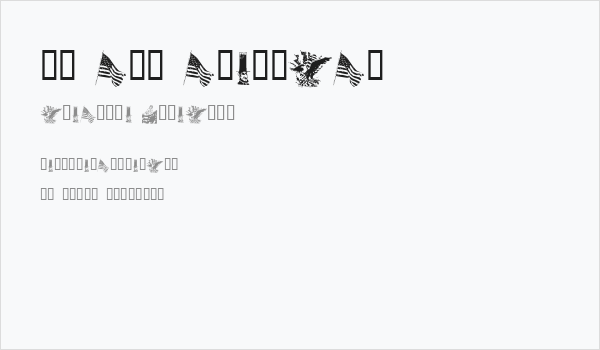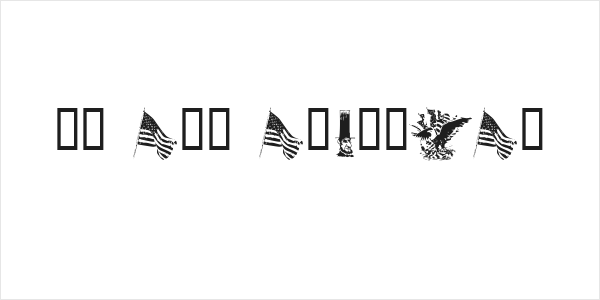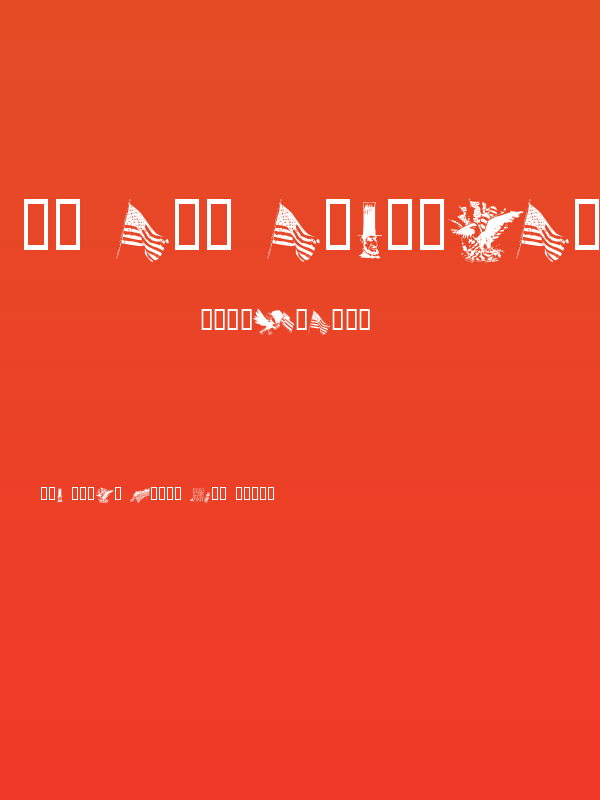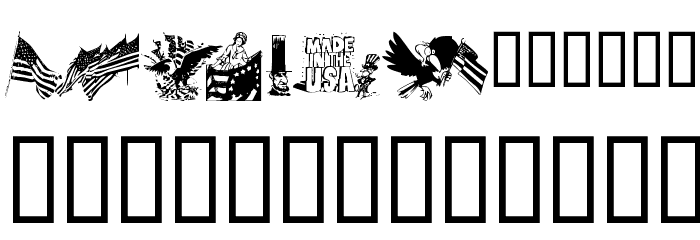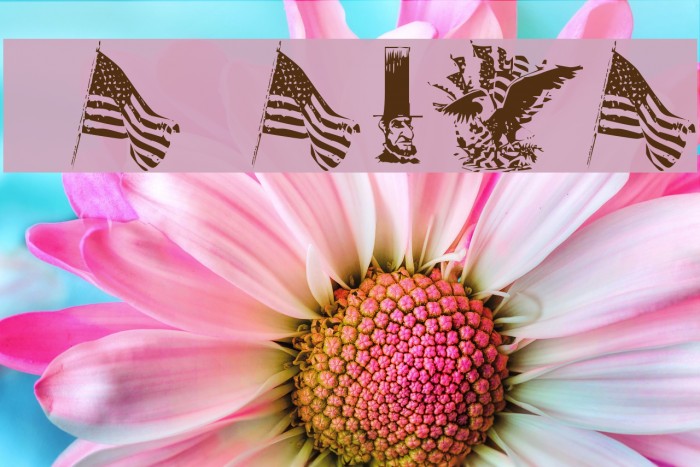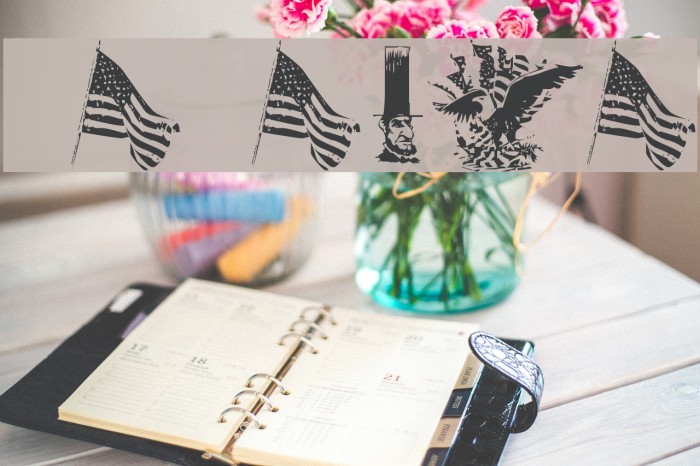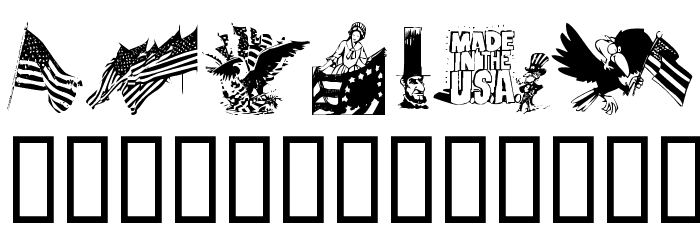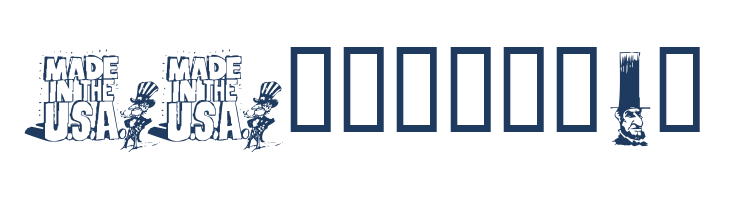
KR All American Font
This is not a valid font. The image contains decorative elements and illustrations rather than a standard set of alphanumeric characters and symbols typically found in a font.